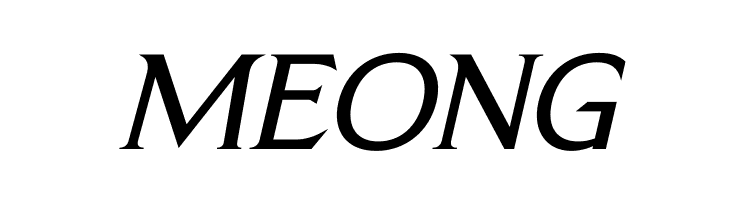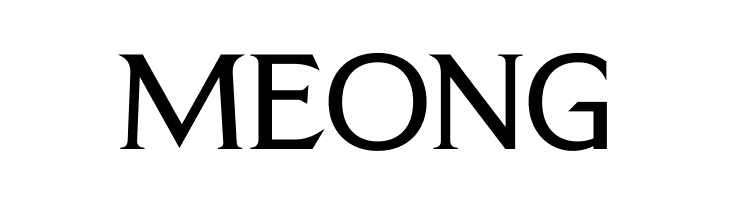
CALLIMBA Font
A classic serif font with elegant strokes and versatile applications.
CALLIMBA Italic Font
An elegant italic font with flowing curves and a classic style.